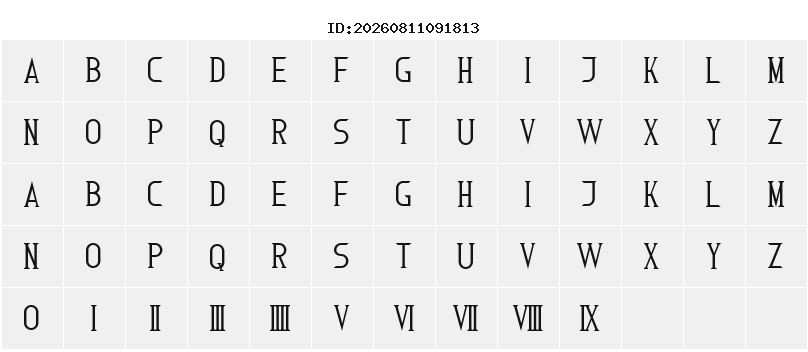
Roman Font 7 Preview
• Font Name: Roman Font 7
• Font ID: Style-7: Rome Sans Serif-7: 2015
• Full Font Name: Roman Font 7
• PostScript Name: RomanFont7
• Designer: Sizenko Alexander-7
• Manufacturer: Style-7
About Roman Font 7.ttf
Roman Font 7.ttf is a modern, elegant sans-serif font designed for ultimate readability and visual harmony. Perfect for branding, headlines, web design, and print materials.